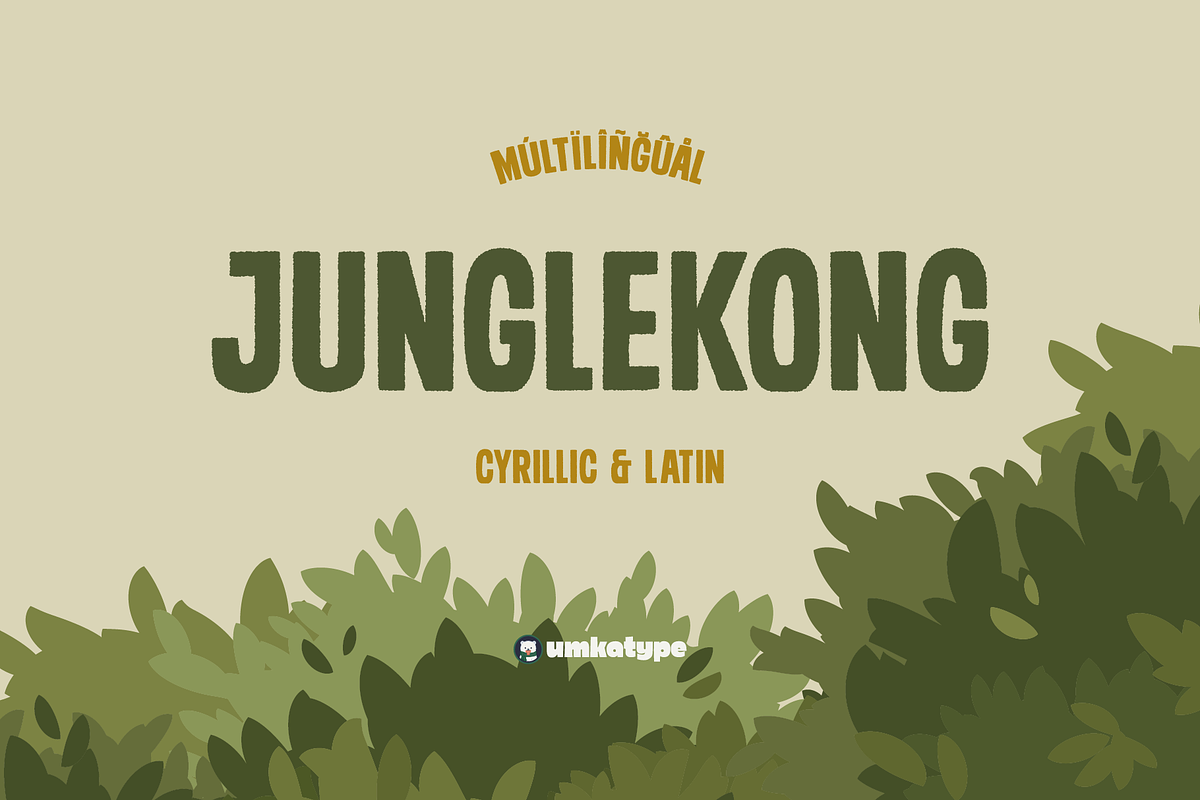
Junglekong Cute Display Font Free Download
Junglekong Cute Display Font Free Download is a lively and adorable typeface that’s perfect for kids’ designs, playful branding, cartoons, and anything that needs a dose of fun. With its chunky letters, rounded edges, and whimsical vibe, this font captures the spirit of joy and creativity—making it a favorite for both digital and print projects.
Junglekong Cute Display Font Free Download is designed to grab attention while keeping things light-hearted and cheerful. Whether you're working on a toy packaging, children’s book cover, or an eye-catching social media post, this font brings personality and energy to your layout. Download it now and add some playful power to your next creative idea!